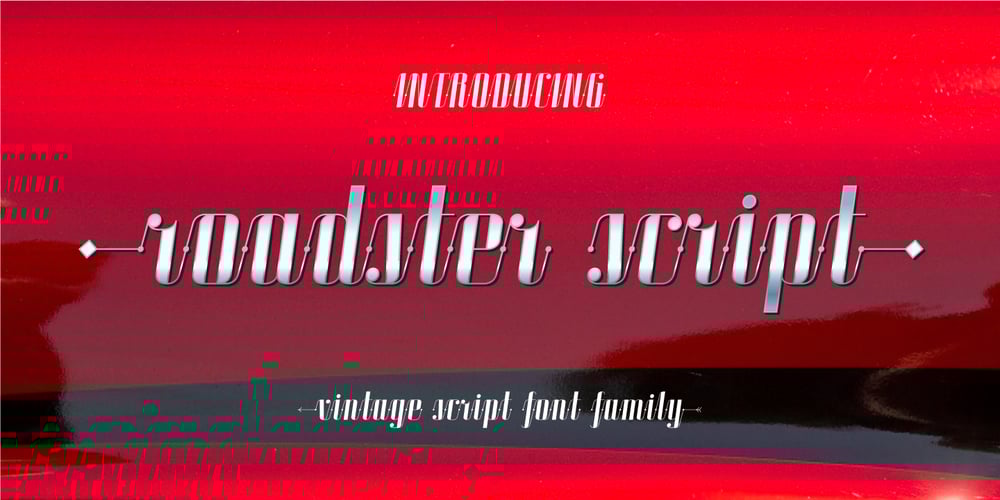
Roadster Script
Roadster Script font
Roadster Script Font Family was designed by Dmitry Arakelov and published by Fontop. Roadster Script contains 6 styles and family package options. Welcome my new vintage style ROADSTER font family. With so many extras the font gives additional opportunities for logo creation, branding designs, blogs. Also looks cool when used in headers in signs, layouts, ad materials. OpenType features include swashes and dividers. To use swashes and dividers you need to press dot (.) followed by a number from 1-9 range.